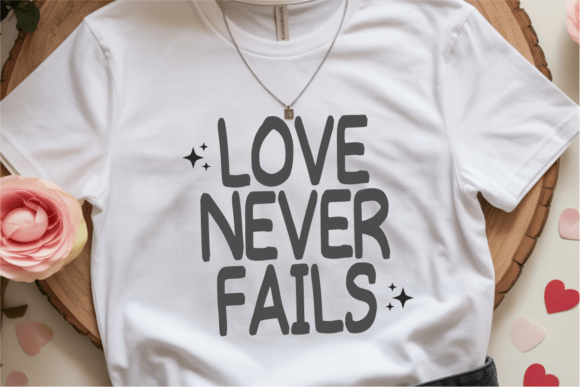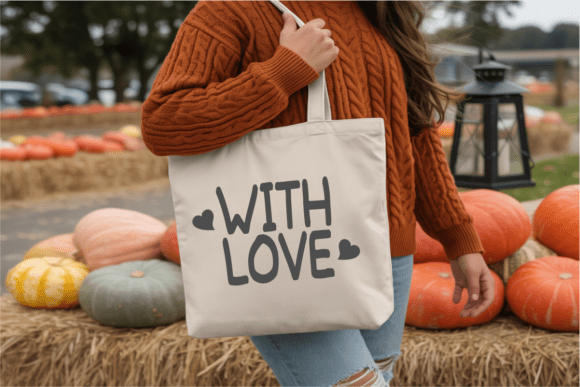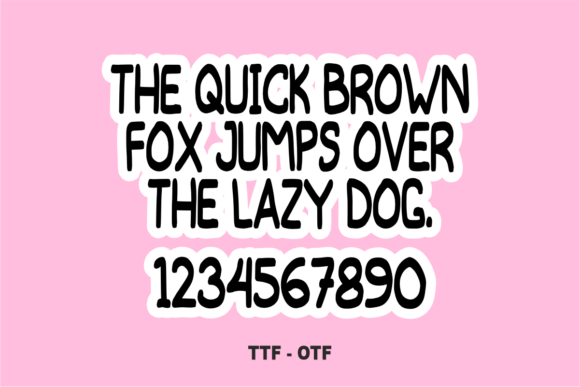
Introduction to Simple Elegant Font
Have you ever found yourself browsing through design resources, searching for the perfect font to give your creative project that extra oomph? We’ve all been there, scrolling through pages of options, trying to find the one that perfectly captures the essence of our vision. For designers, the right font can make all the difference in conveying our message and leaving a lasting impression. And that’s exactly where the Simple Elegant Font comes in – a beautifully hand-drawn display font that effortlessly combines casual charm and refined style.
With its bold, slightly uneven letterforms and relaxed, brushed appearance, the Simple Elegant Font is the perfect choice for designers seeking a high-quality design resource that exudes warmth and character. Whether you’re working on a logo for a boutique, creating social media quotes, or designing titles for lifestyle blogs and videos, this font is sure to deliver an effortlessly stylish look that’s both approachable and sophisticated.
- Unique, elegant design with clean lines and a minimalist aesthetic, setting it apart from other fonts in its class.
- Perfect for use in logos, headings, and body text, adding a touch of sophistication to any creative project.
Honest Review: Simple Elegant Font
I recently stumbled upon the Simple Elegant Font and I must say, it’s a fantastic design resource for any creative project. The font’s clean and minimalist aesthetic makes it perfect for various applications, from business cards to social media graphics.
Here are some key features of the Simple Elegant Font:
- Clean and minimalist aesthetic
- High quality with crisp lines and smooth curves
Limitations: ⚠️ The font’s simplicity might not be suitable for projects that require a bold or dramatic look. Additionally, the font’s limited character set might be a concern for designers who need to create complex typography.
Overall, I’m impressed with the Simple Elegant Font and would recommend it to designers who value a clean and elegant aesthetic. While it may have some limitations, its high quality and free download option make it a valuable addition to any design resource library.
Simple Elegant Font
For a creative project, use the Simple Elegant Font in combination with other design elements to create a visually appealing design.
Experiment with different font sizes and styles to achieve a balanced design.
The Simple Elegant Font is ideal for use in presentations, flyers, brochures, and other marketing materials.
It is also suitable for use in creative projects, such as graphics, logos, and branding materials.
The font’s high-quality design makes it a popular choice among designers and non-designers alike.